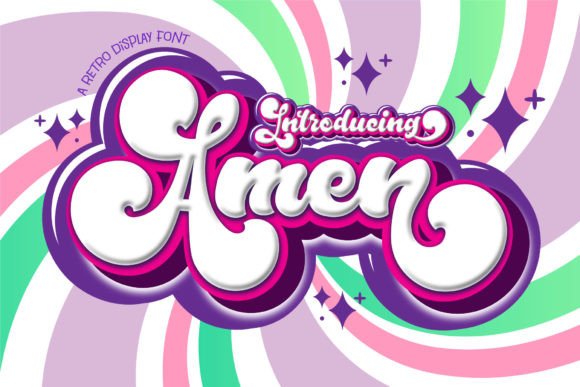
Looking for a font that embodies romance, retro-chic, and fashion all in one? Look no further than Amen Font by Nobu Collections! This stunning script font is perfect for creating eye-catching designs that will leave a lasting impression.
Amen Font is a versatile and unique handwritten font that will add a touch of elegance and class to any project. Its retro feel is perfect for creating nostalgic designs, while its romantic and fashionable style make it perfect for modern projects as well. Whether you're designing a wedding invitation, a logo, or a website, Amen Font will help your project stand out from the crowd.
One of the best things about Amen Font is its versatility. Whether you want to create a bold and striking design, or something more subtle and understated, this font has got you covered. With its PUA encoding, accessing all of the amazing glyphs and ligatures is a breeze. So, whether you're a beginner or an experienced designer, Amen Font is the perfect choice.
In addition to its stunning aesthetic, Amen Font is also incredibly easy to use. Its user-friendly interface makes it simple to customize and adjust the font to your liking. And with its wide range of options, you'll never run out of creative ideas for your designs.
Overall, Amen Font by Nobu Collections is an exceptional choice for anyone looking to add a touch of romance, retro-chic, and fashion to their designs. With its unique style, versatile options, and user-friendly interface, it's no wonder why this font is a favorite among designers everywhere.